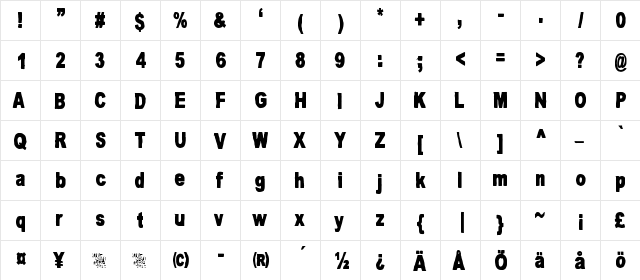
Good And Evil Night Regular
Design Context for Good And Evil Night Typeface
Good And Evil Night offers clean, dependable letterforms without strong stylistic allegiance, making it a practical choice for designers who need flexibility.